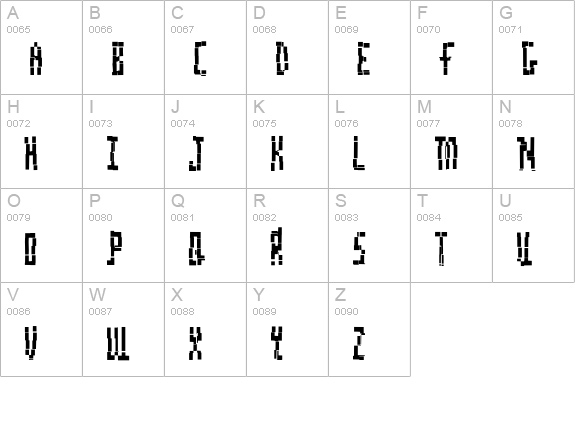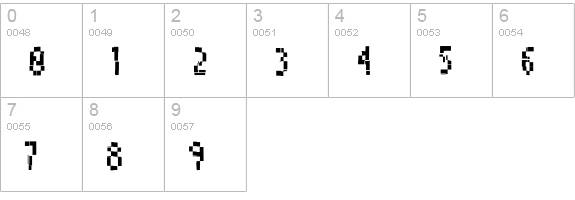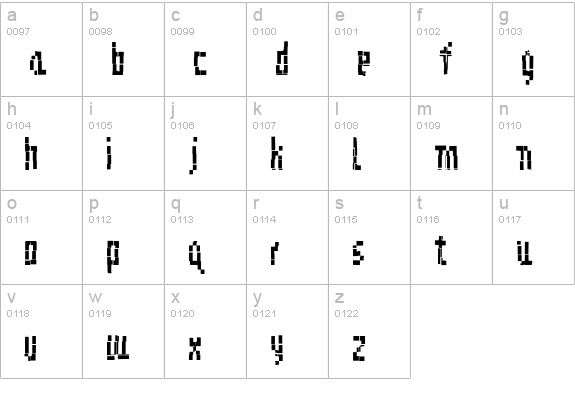
DigitalDecay-Normal is the standard, neutral variant in the DigitalDecay typeface family \xE2\x80\x94 well suited to general body text, paragraphs, and standard typographic work.
DigitalDecay-Normal font is a unique and captivating typeface that captures the essence of decay in the digital world. With its edgy and worn-out appearance, this font adds a touch of grit and character to any design project. The uneven lines and rough edges give DigitalDecay-Normal a raw and authentic feel, making it perfect for conveying a sense of nostalgia or futuristic dystopia. Best of all, DigitalDecay-Normal font is available for free download at FontsMarket.com. This means you can easily add this eye-catching font to your collection without any cost. Whether you're working on a poster, website, or branding project, DigitalDecay-Normal font is sure to make a lasting impression. Download it today and unleash the power of digital decay in your designs.